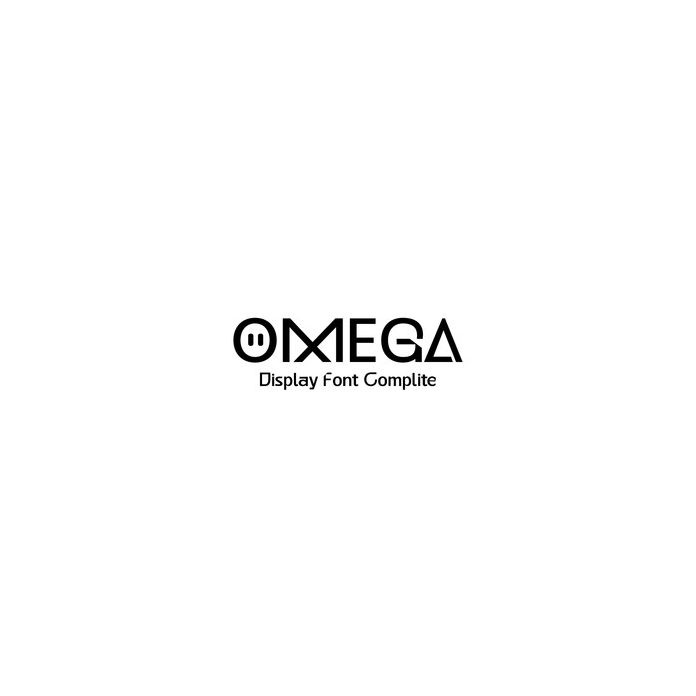
Omega A bold, straightforward style that's perfect for any design project. Since this font has a sharp and natural cut, it is a very dynamic product font used for projects, logos, branding, screen printing, crafts, advertising, and celebration personalization. etc . Includes alphabet, ligature, numbers and punctuation.